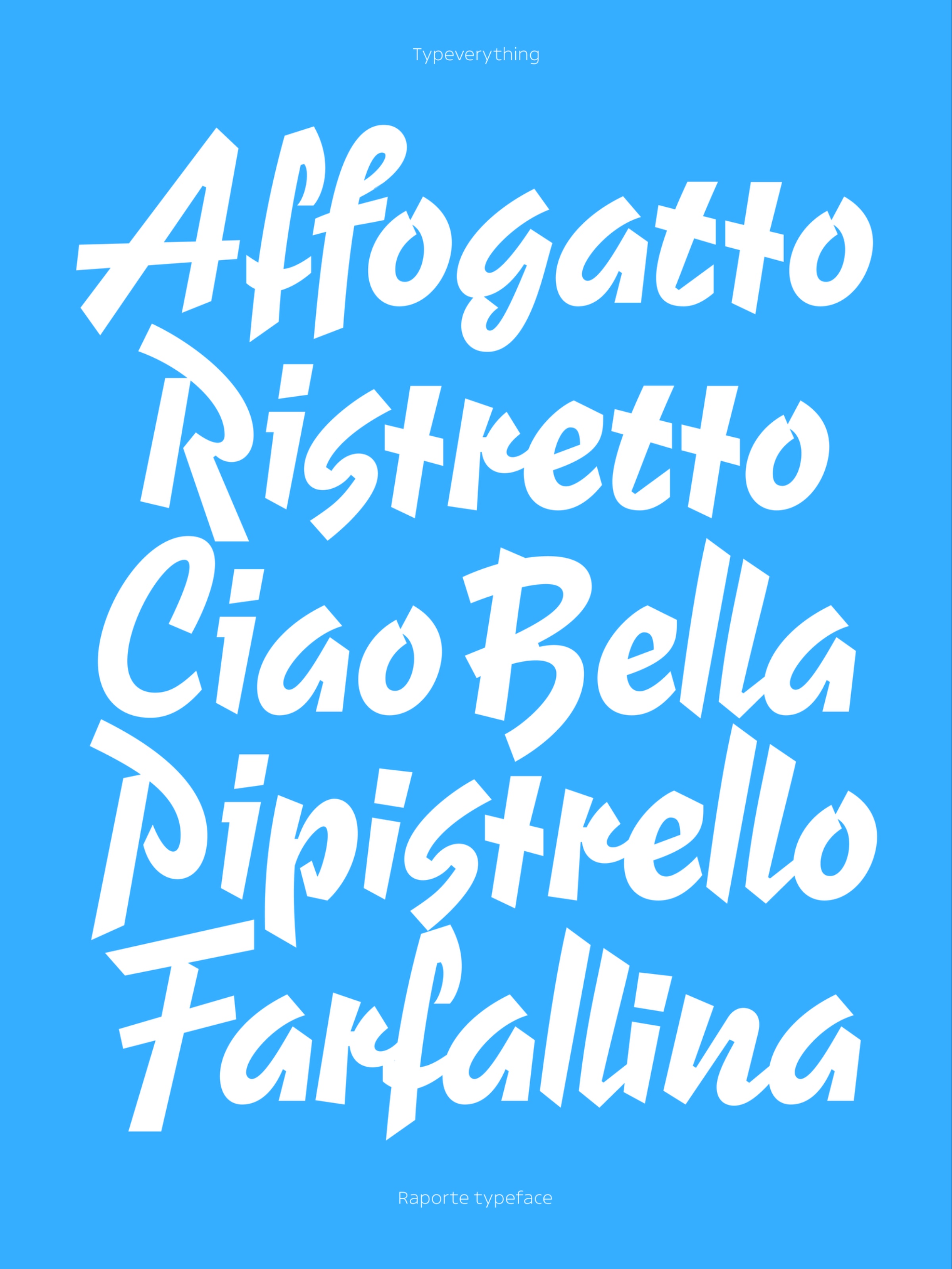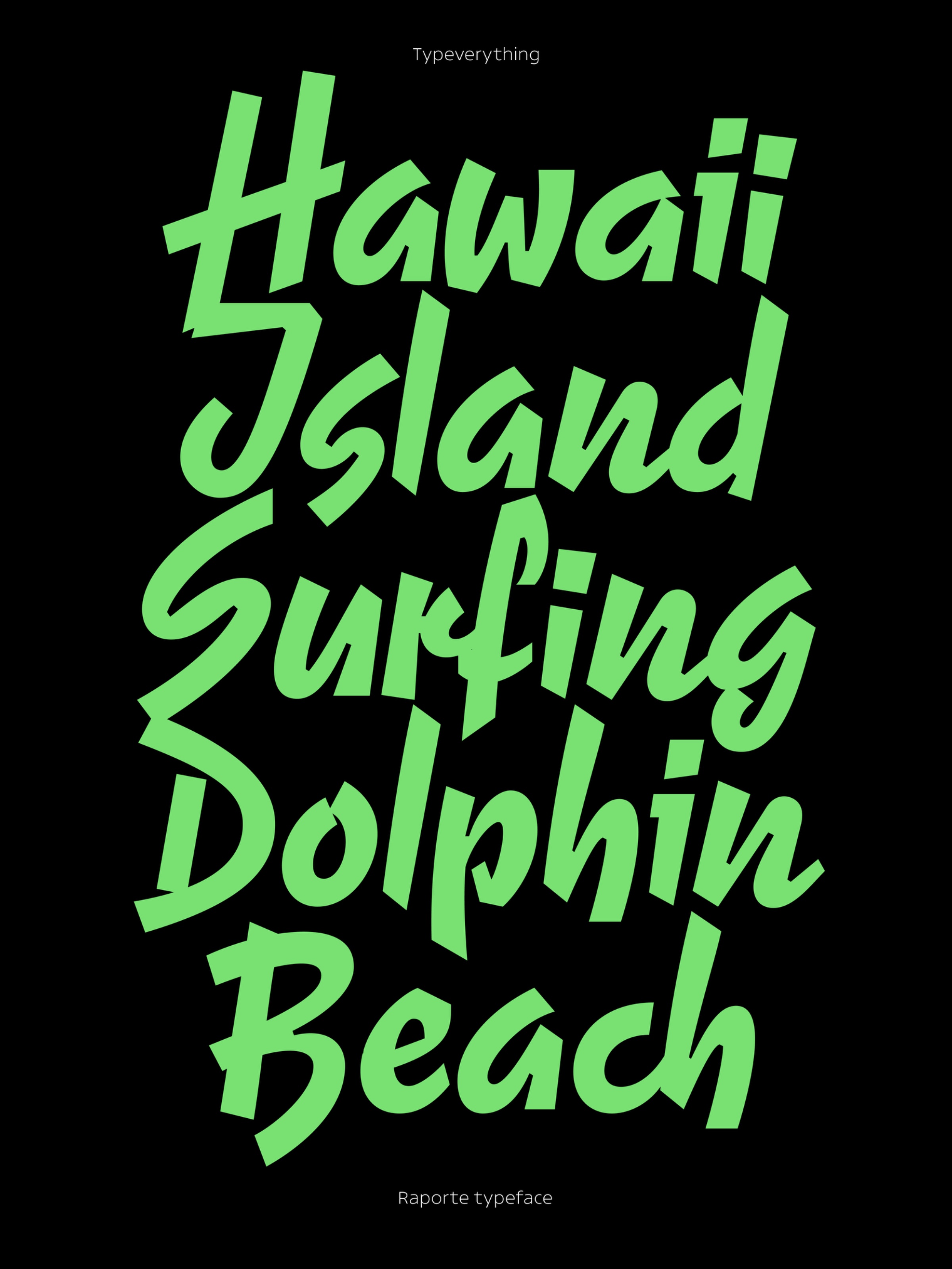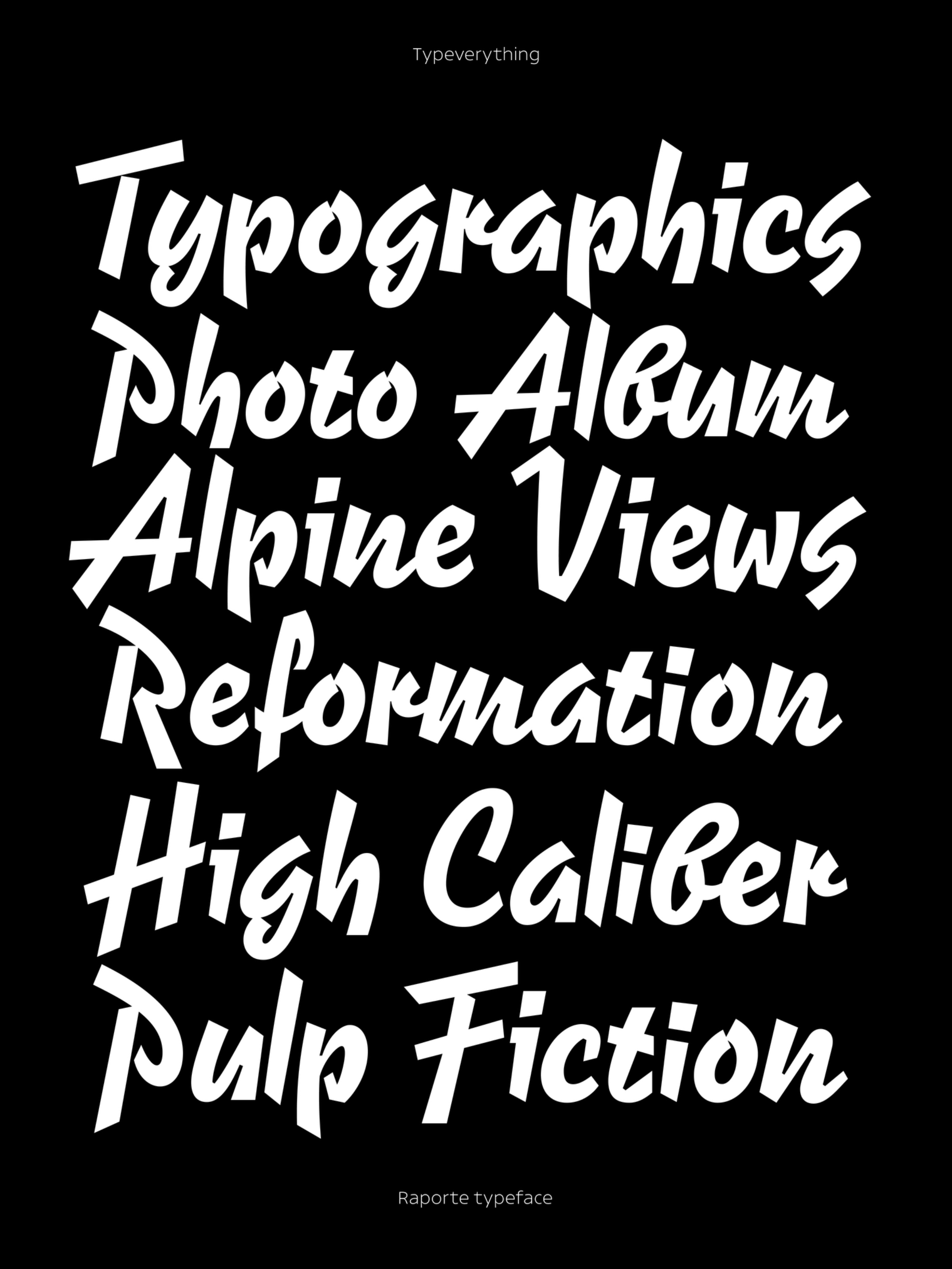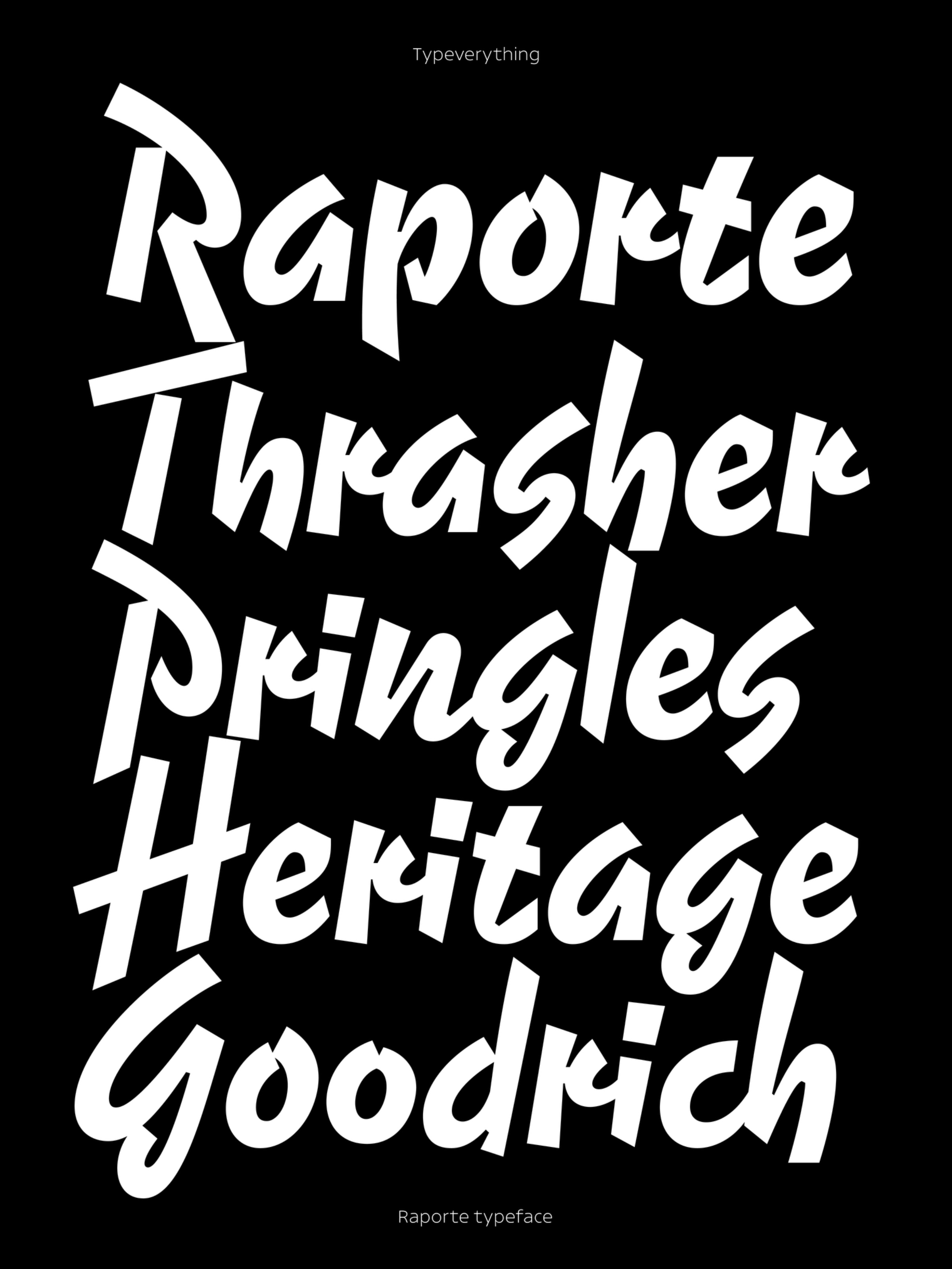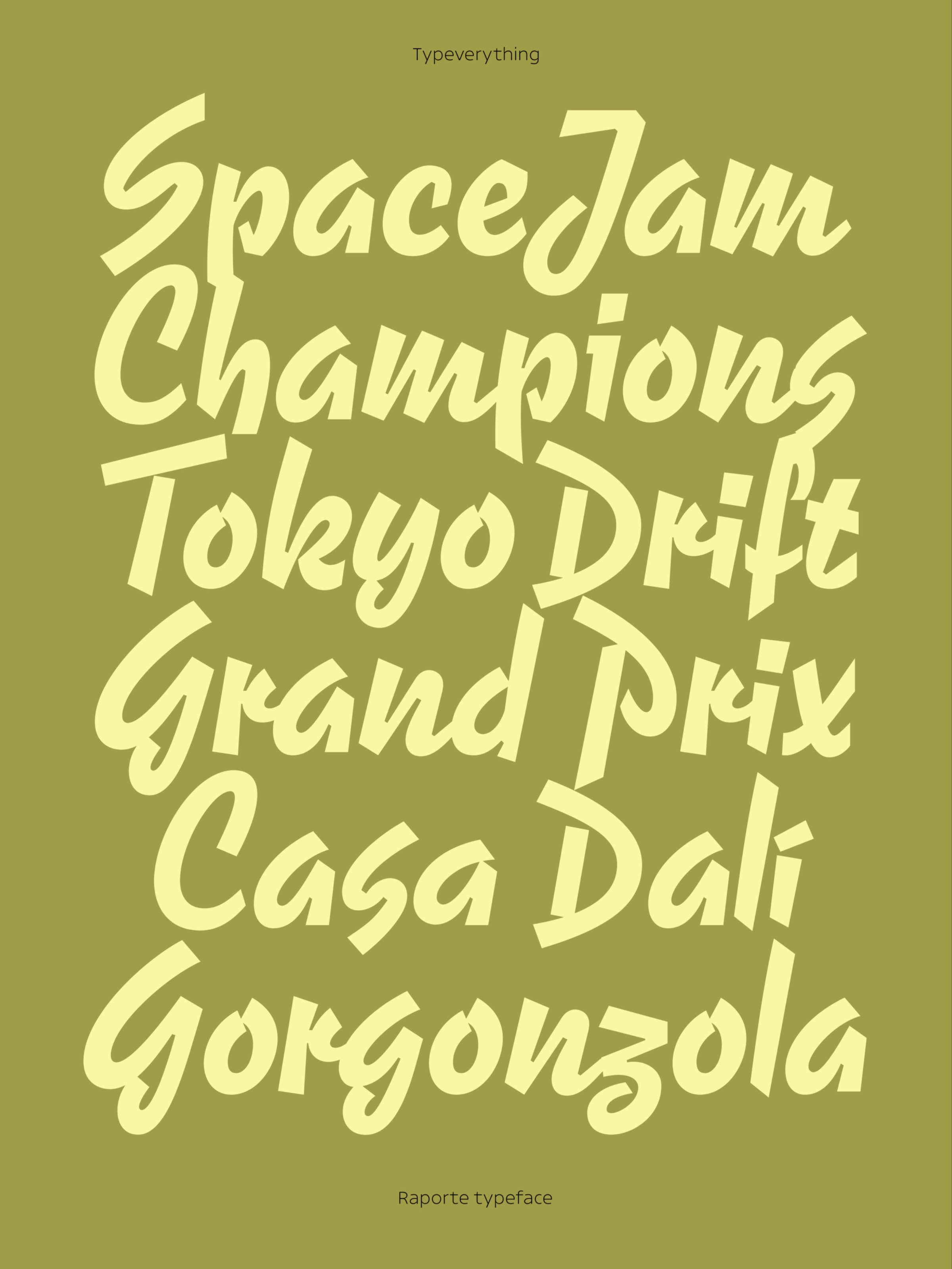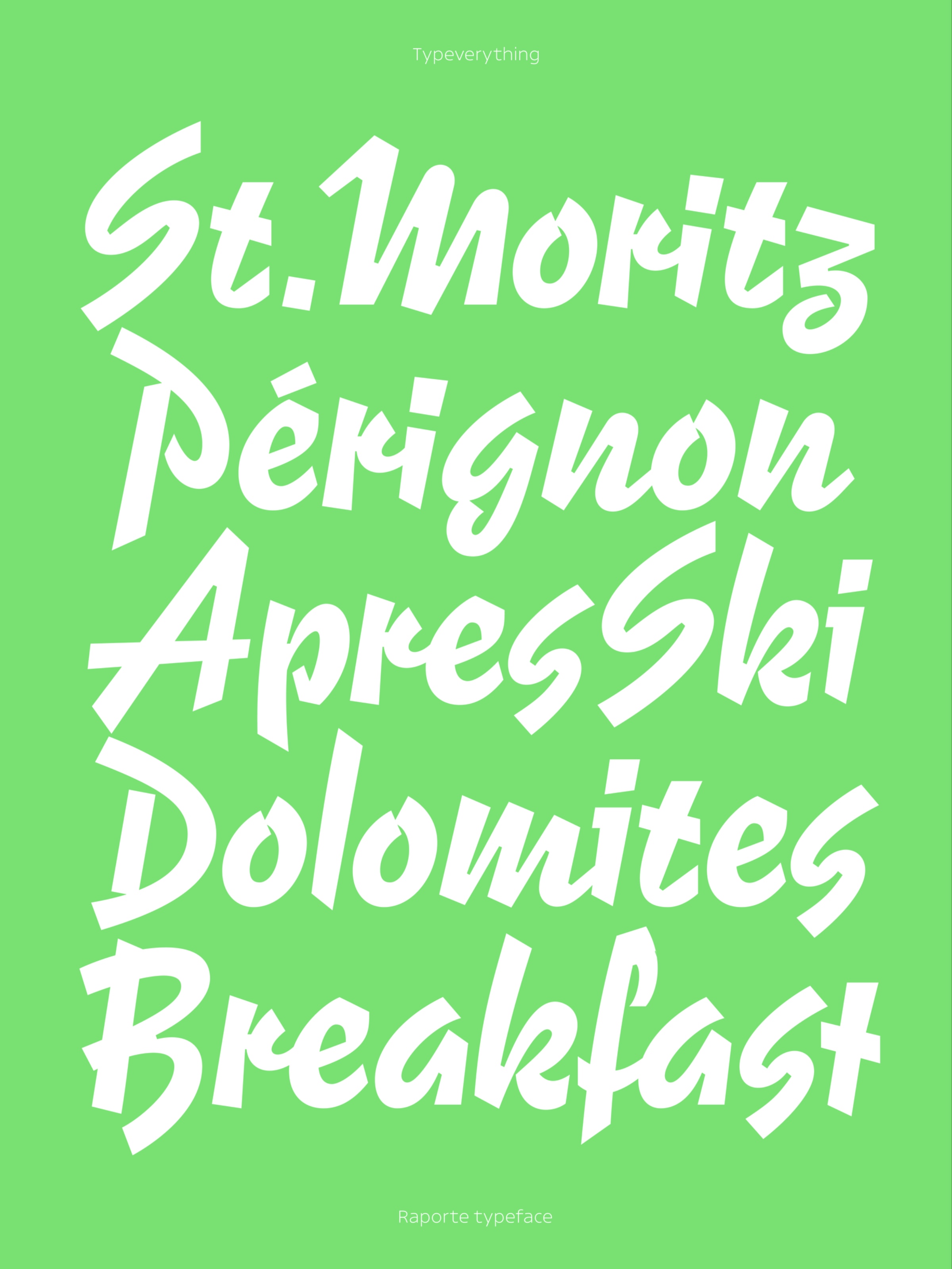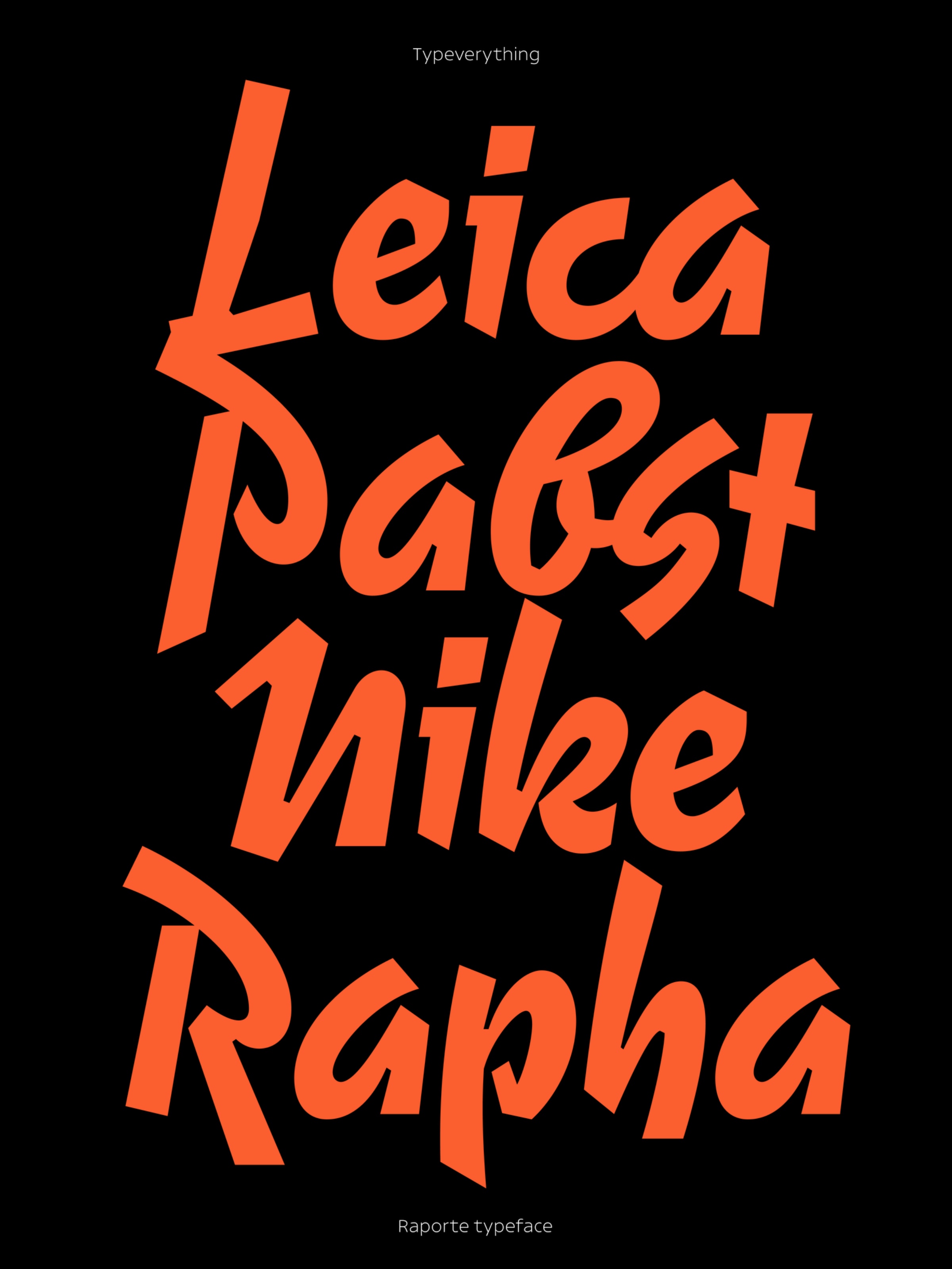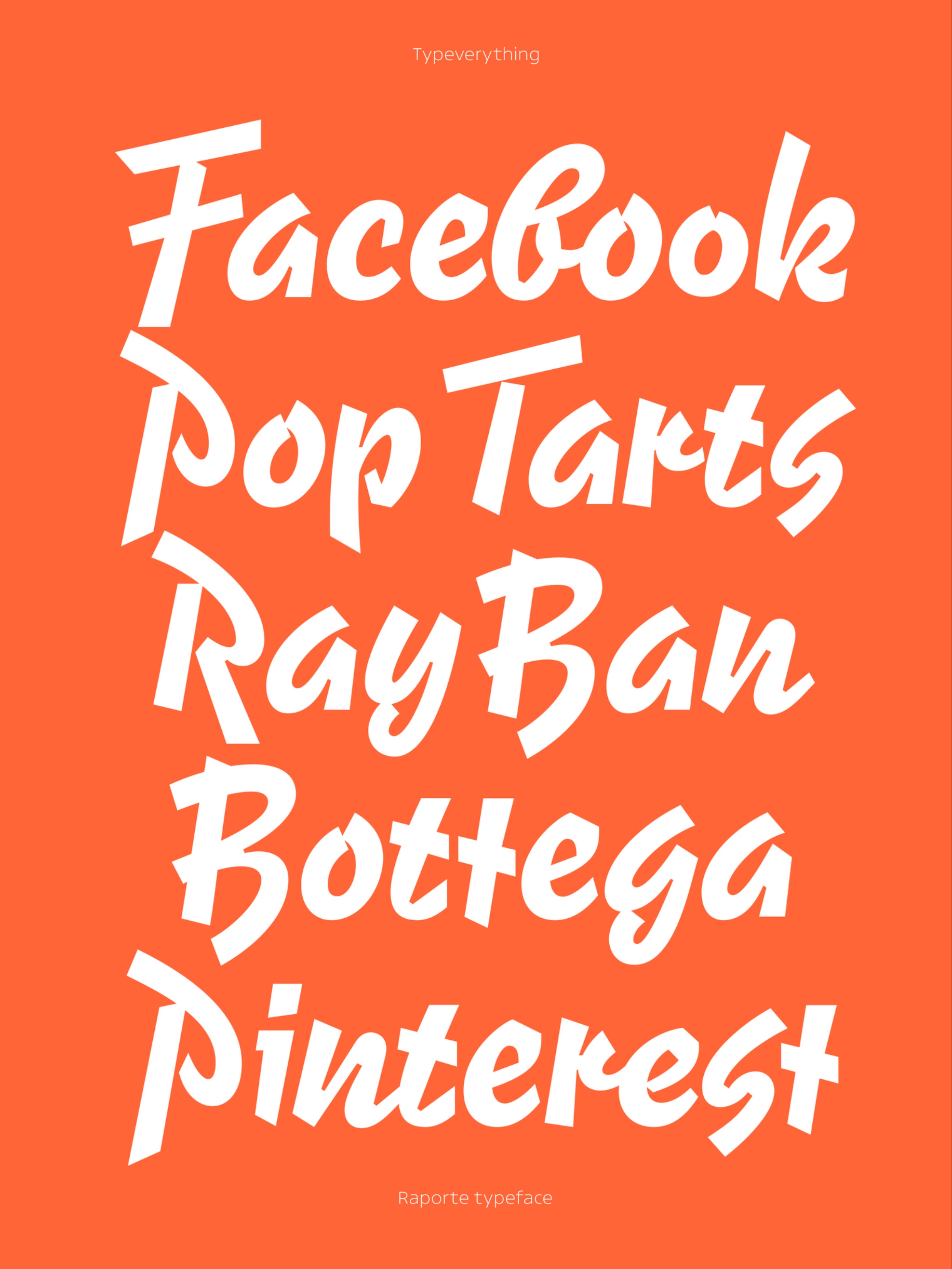
Raporte Typeface by Typeverything.com
Raporte is a new typeface from Typeverything, inspired by the classic Reporter. This was a curious brush script for it's time, first cast in 1938 by Norddeutsche Schriftgießerei and later taken on by Johannes Wagner. It captured the casual flow of a marker pen and somehow translated it into metal (and even wood), complete with alternates and ligatures. Our starting point for Raporte came not from the brushy version everyone remembers, but from a German neon sign where the texture had been stripped away. The endings were blunt, almost monoline, and suddenly the script looked less nostalgic and more contemporary. From there, we rebuilt the design with today’s tools. Raporte keeps Reporter’s cool flow but smooths the details for clarity. And because we don’t live in 1938 anymore, we let OpenType do the heavy lifting: most lowercase letters have alternates that switch automatically, so repeated letters never clone themselves. One “m” might sit tall, the next a little shorter, like handwriting that refuses to repeat. Back when ligatures were exotic sorts, Reporter had a handful; Raporte multiplies them into hundreds of possible connections. The result is a playful, modern script with Latin+ support and over 800 glyphs. It’s perfect for logos, book and magazine titles, posters, and packaging, anywhere you need a lively typeface that feels both human and contemporary.